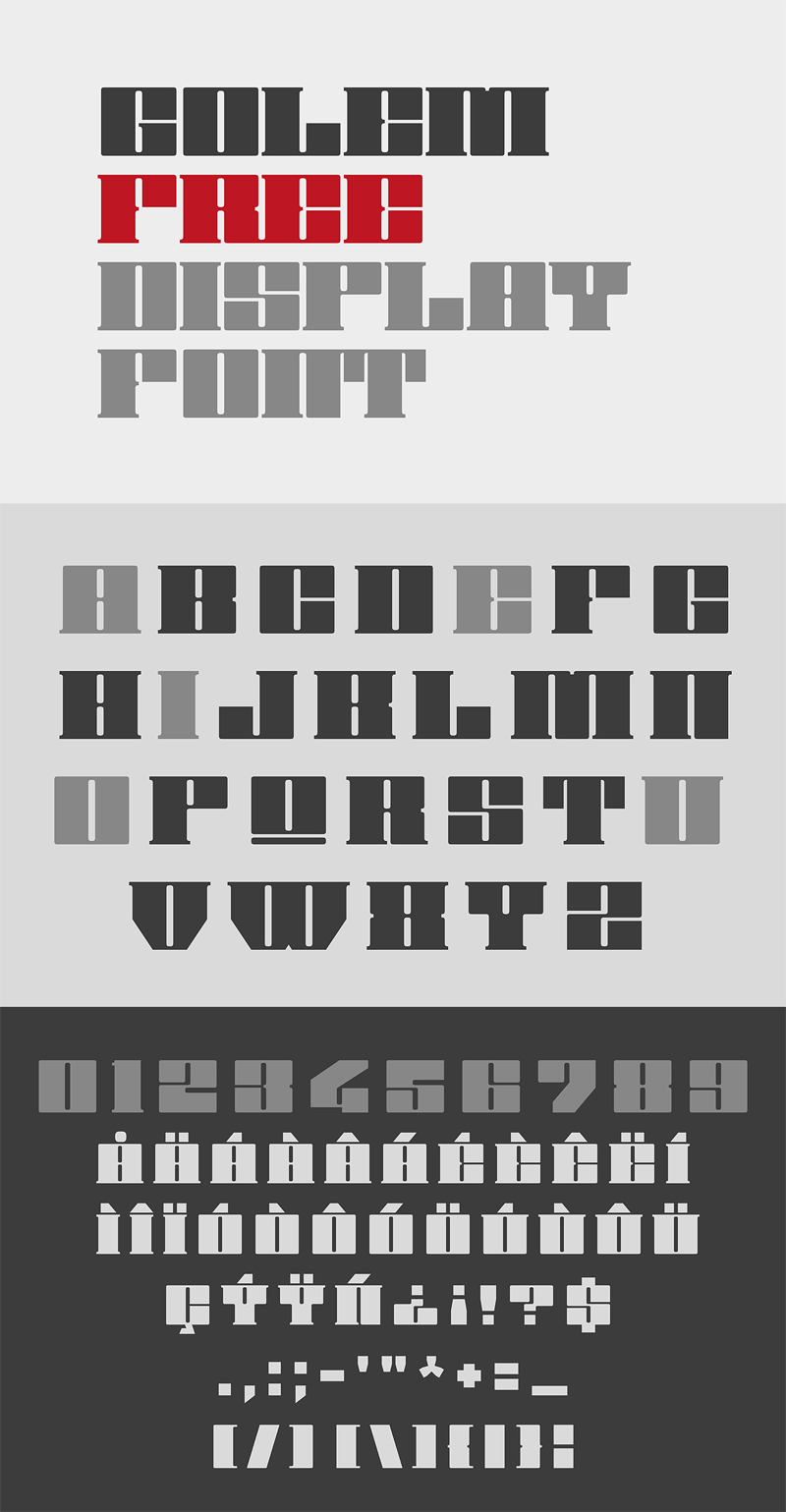
Golem Free Display Font
Golem is almost a modular font which letterform is based on a square, a black block inspired directly from the form of the myths that surround this creature.It was not created to be readable in small bodies, it is heavy, too strong to be used in large t…